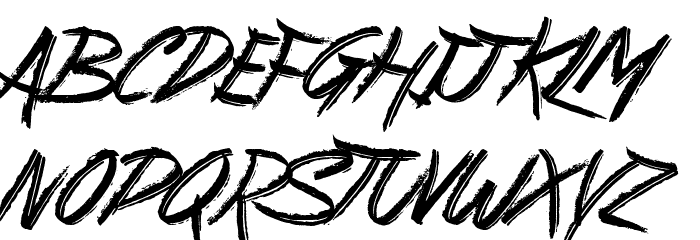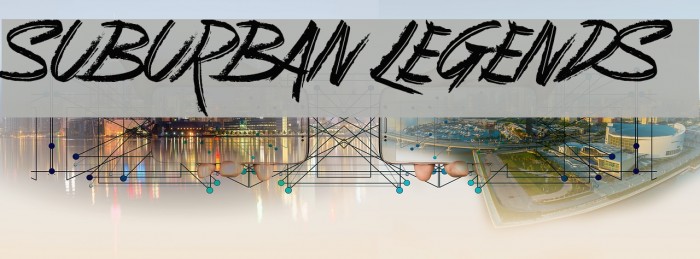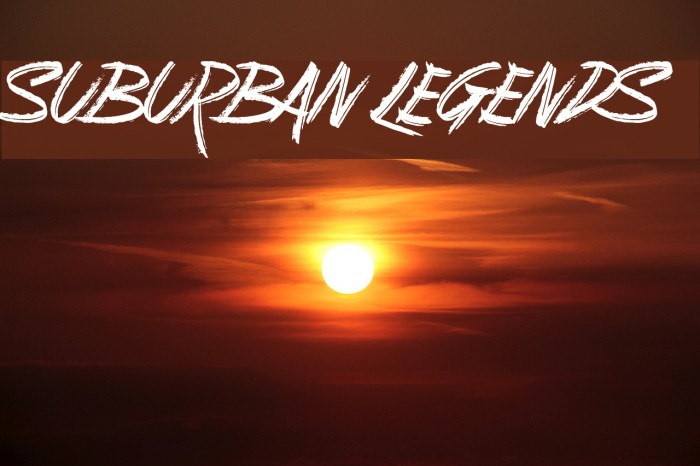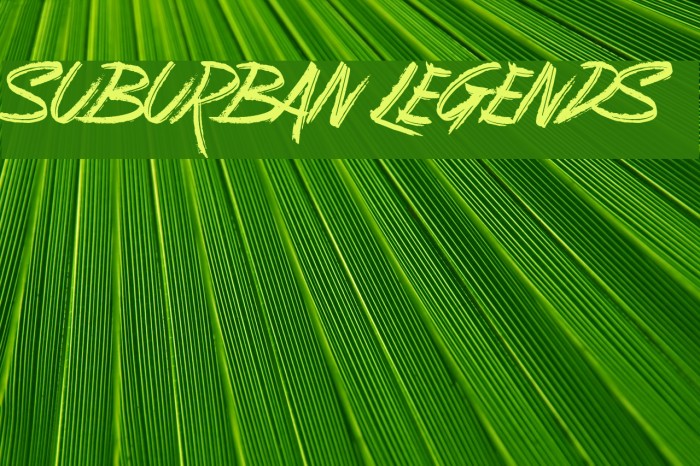
Suburban Legends Font
This font features a bold, energetic script style with a hand-drawn appearance. The letters are characterized by their dynamic, brush-like strokes, giving them a sense of movement and flair. The uppercase and lowercase letters maintain a consistent style, with sharp angles and a slightly rough texture that adds to the font's edgy and rebellious feel. The overall design is reminiscent of graffiti or street art, making it ideal for projects that require a bold and expressive typeface. The font's unique style is further emphasized by its irregular baseline and varying stroke widths, which contribute to its informal and artistic look.
A bold, energetic script font with a hand-drawn, graffiti-like style.
- Proposed Projects: Ideal for streetwear branding, music album covers, event posters, and urban-themed designs.